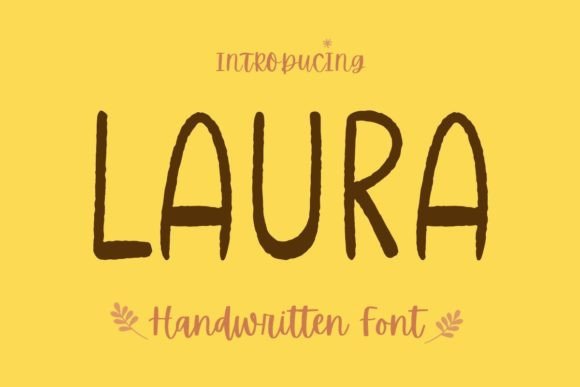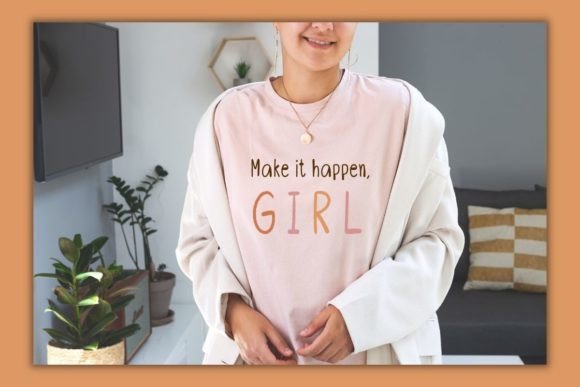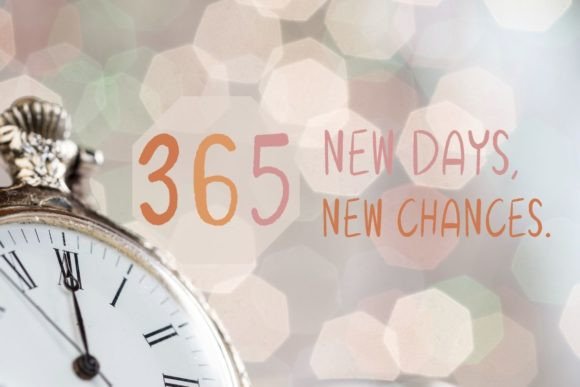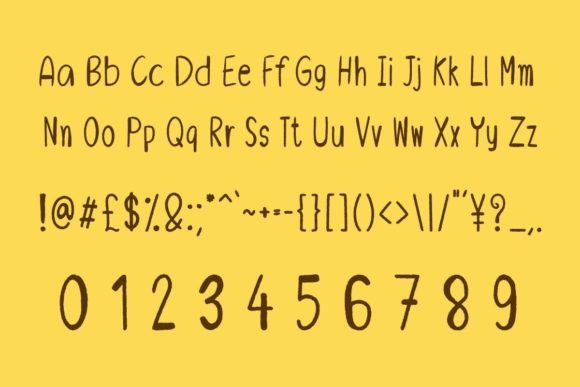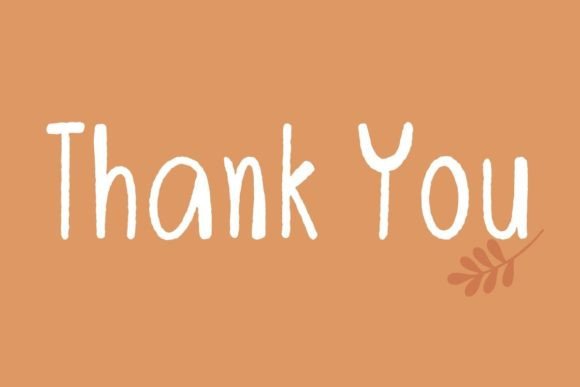
Laura Font
A Lighthearted and Playful Handwritten Typeface
Laura is an adorable handwritten font that brings a sense of joy and ease to any project. Its soft curves and informal letterforms make it feel approachable and fun. Whether you’re designing for personal projects or professional branding, Laura is the perfect way to add a touch of whimsy and charm.
Its laid-back style feels modern yet timeless, helping your work stand out while staying friendly and inviting.
Laura is versatile enough to suit many design needs. It works beautifully for casual logos, where the handwritten look makes your brand feel warm and personal. Use it on business cards, product labels, or website headers to create a consistent, approachable identity.
This font is also an excellent choice for invitations and greeting cards. Whether you’re making birthday cards, baby shower invitations, or thank-you notes, Laura adds a playful, heartfelt touch.
On social media, Laura shines in quotes, captions, and posts. Its relaxed style helps your content feel more relatable and engaging, making it perfect for lifestyle brands, personal accounts, or creative businesses.
Clear, Stylish, and Readable
Even though Laura has an informal feel, it remains clean and easy to read in any size. Each letter features balanced spacing and smooth curves that maintain clarity, whether you’re using large headlines or smaller captions.
For a professional look, pair Laura with a minimalist sans-serif font. Use Laura for your main text and the sans-serif for supporting details. This combination keeps layouts modern and fresh while highlighting Laura’s playful personality.
Great for Branding and Digital Content
Laura fits seamlessly into modern branding and digital design. It’s ideal for businesses that want to create an approachable, cheerful tone. Use it in website headers, social media graphics, email campaigns, and packaging to build a cohesive, friendly presence.
If you create digital products like printable wall art, planners, or stickers, Laura adds a warm, handmade feel that appeals to your audience.
To help Laura shine, use light backgrounds and soft color palettes. Shades like pale pink, ivory, or pastel blue let the lettering stand out without competing for attention.
Add small doodles or icons to complement the handwritten look and create a cohesive design.
Leave plenty of white space around your text, especially in social media graphics or invitations. This keeps your layout clean and easy to read.
Laura is perfect for any project that should feel lighthearted, genuine, and approachable.
Laura isn’t just another handwritten font—it’s a creative asset that elevates any project with ease. From logos and cards to digital content and packaging, this font adapts beautifully and adds a polished, playful finish to your designs.
Adding Laura to your collection means you’ll always have a cheerful, relaxed option ready to use. Whether you’re designing for clients or yourself, this font makes every idea feel special and inviting.